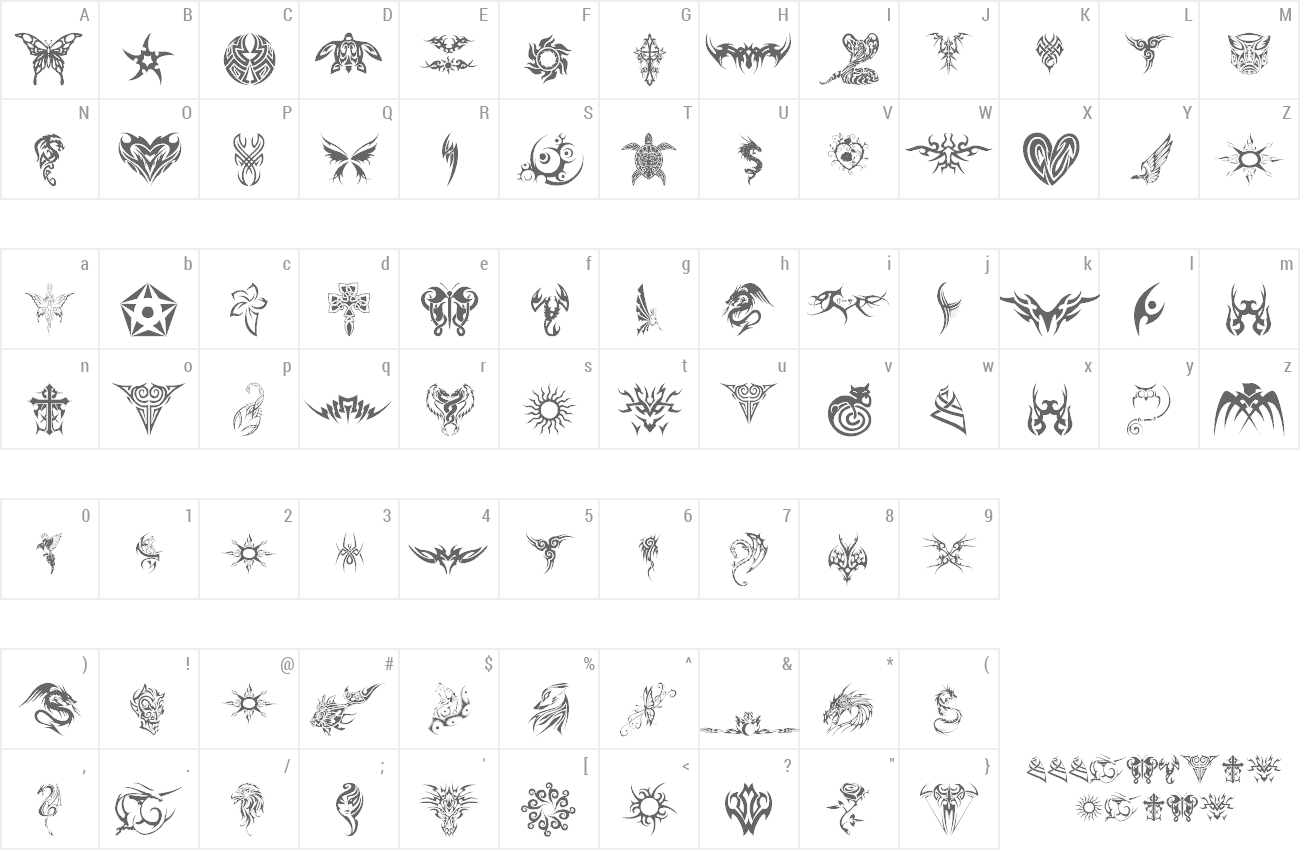
| Font name: | Tribal Tattoo |
| Categories | Dingbats, Various |
| Author: | zanatlija |
| Note by zanatlija | |
tribal tattoo font.ttf is a free for personal use, is an amateur design =) includes memes in upper and lower case, numbers and symbols my site: http://truefonts.blogspot.com direct link to the font http://truefonts.blogspot.com/2012/11/tribal-tattoo-font.html kaiserzharkhan |